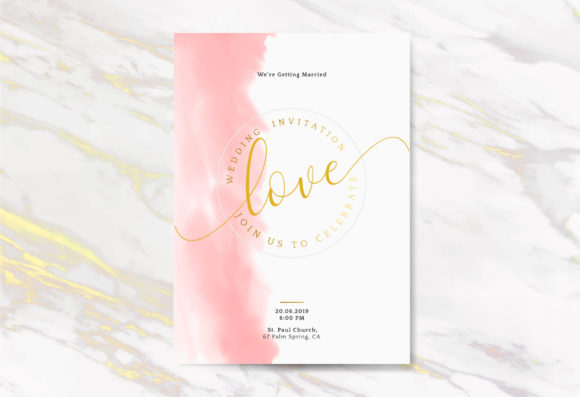
Lieselotte Script Font
db-ku.com - Script & Handwritten -- The Lieselotte is an unique blend of classic and modern fonts. It has dancing letters with an imperfect style.